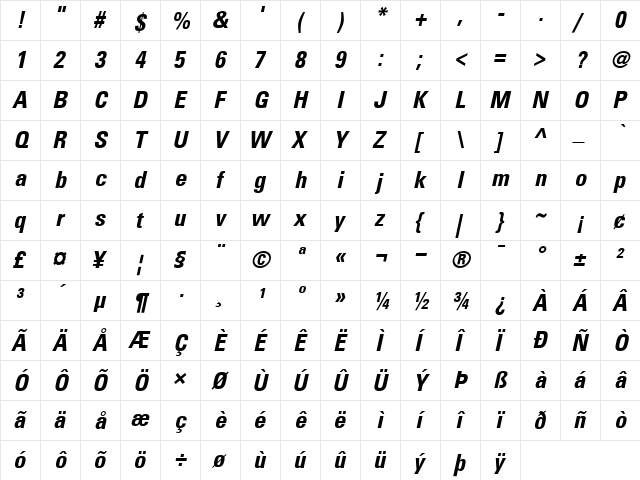
Univers67-Condensed BoldItalic Font Preview
Design Context for Univers67-Condensed Typeface
Univers67-Condensed offers clean, dependable letterforms without strong stylistic allegiance, making it a practical choice for designers who need flexibility. The slanted form adds forward momentum and visual energy. Its bold stroke weight gives it real presence on the page. The condensed width makes it efficient for tight spaces without sacrificing legibility.
Pro Tip: Try Univers67-Condensed for annotation and caption copy alongside an upright companion — the contrast in angle creates a dynamic but ordered typographic system.